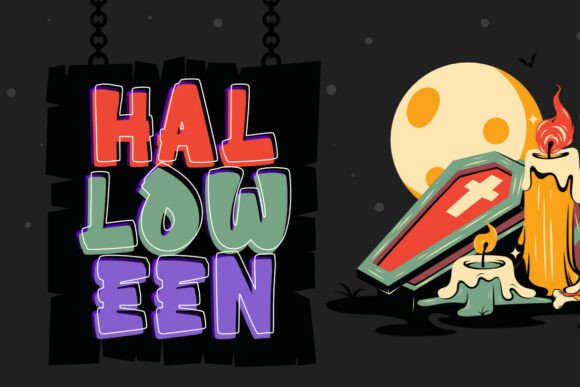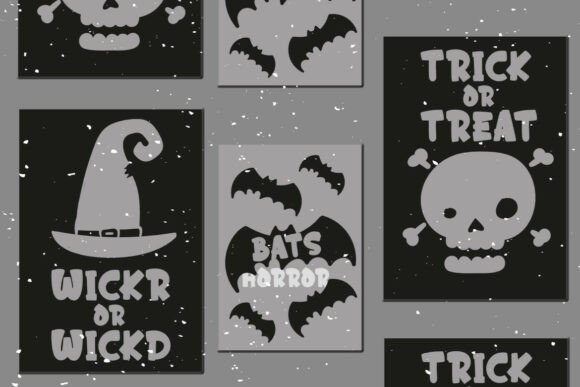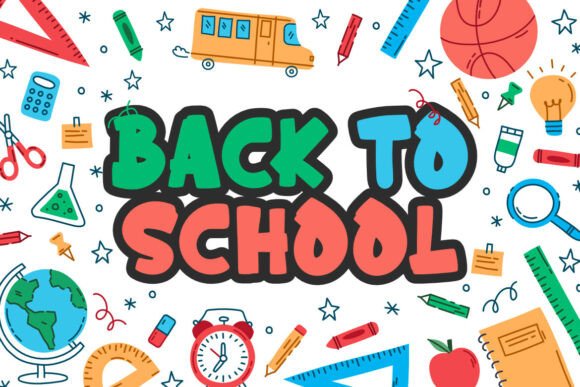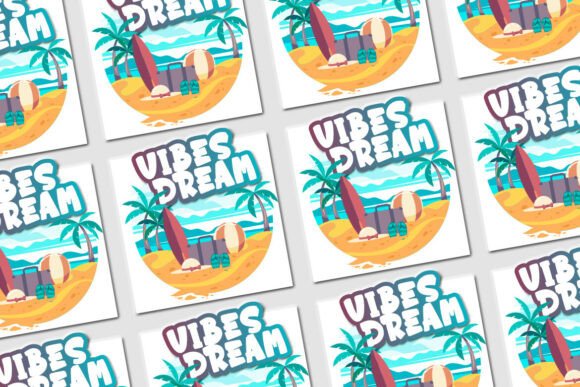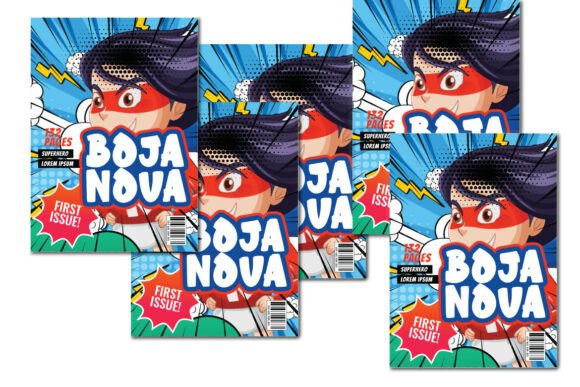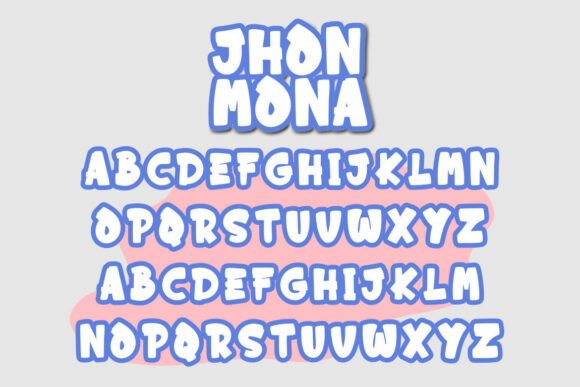
Introduction to Jhon Mona Font Font
Fonts play a crucial role in design, and the Jhon Mona Font font is a typeface that brings both character and versatility to any project. Whether you’re working on a branding project, a website, or a print design, the Jhon Mona Font font offers a unique style that can elevate your work.
Jhon Mona Playful Display Font is a fun and cheerful typeface inspired by doodle-style illustrations, kids-friendly visuals, and imaginative creativity.
Featuring bold shapes, rounded edges, and lively character forms, this font brings a joyful and energetic personality to any design Designed to capture the spirit of happiness and playfulness, Jhon Mona blends cartoon-inspired lettering with a clean and modern structure.
Key Features of Jhon Mona Font Font
Why Choose Jhon Mona Font Font?
The Jhon Mona Font font is more than just a typeface – it’s a design tool that helps you communicate your message with style and clarity. Its unique character set and versatile design make it suitable for a wide range of applications, from elegant invitations to bold headlines.
With its carefully crafted letterforms and balanced proportions, the Jhon Mona Font font ensures readability and visual appeal across all mediums.
What makes Jhon Mona Font font special?
The Jhon Mona Font font stands out with its unique design, exceptional readability, and versatility across various design applications.